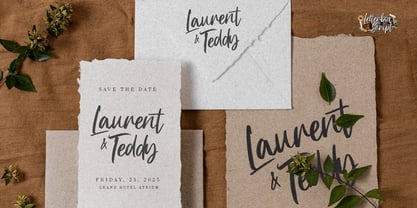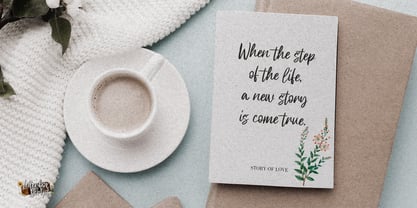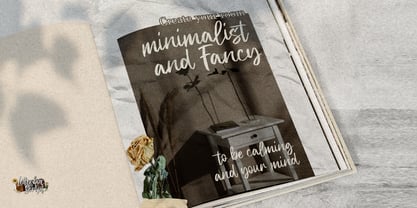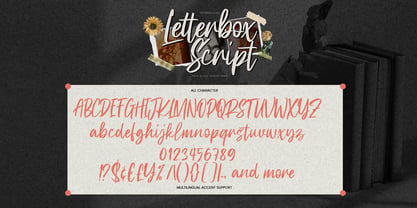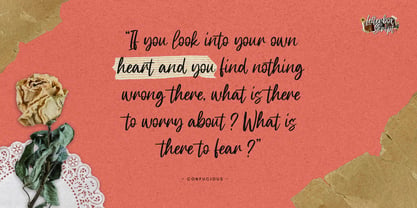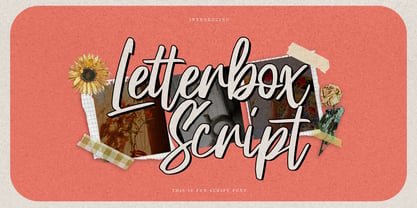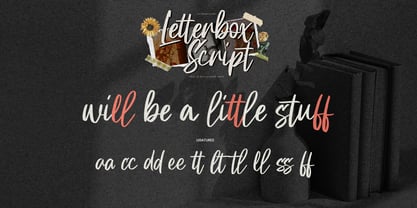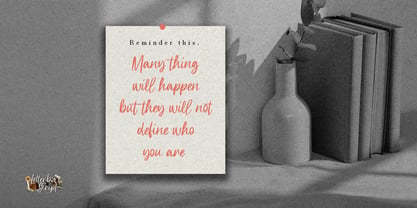
Letterbox Script
Die Schriftfamilie Letterbox Script wurde von Abdul Malik Wisnu entworfen und von Gassstype veröffentlicht. Letterbox Script enthält 1 Stile. Mehr über diese Familie
Introducing our new product, Font Letterbox Script! This fun script font features a textured, natural style with smooth handwritten elements. Letterbox Script is perfect for a variety of creative projects, including logos, printed quotes, invitations, cards, product packaging, headers, logotypes, letterheads, posters, and more. Its charming and authentic characteristics add a relaxed, natural look to your text, making it ideal for watermarks on photography, branding, advertisements, stationery, wedding designs, labels, and special events. Elevate your designs with this versatile font that brings a handwritten touch to any project!
Designer: Abdul Malik Wisnu